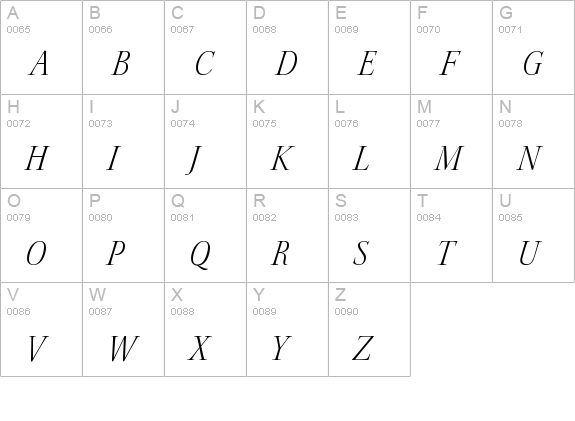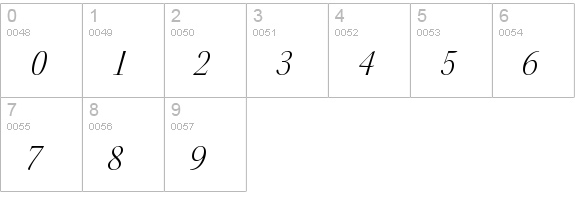
Kepler Std Light Semicondensed Italic Display Font Details
Kepler Std Light Semicondensed Italic Display is a refined, elegant, italic variant in the Kepler typeface family \xE2\x80\x94 well suited to elegant body text, refined sub-headings, and luxury branding.
Kepler Std Light Semicondensed Italic Display font is a stunning and versatile typeface that exudes elegance and sophistication. Its sleek and refined design makes it perfect for a wide range of projects, from branding and packaging to editorial and advertising. This font features a unique blend of modernity and classic charm, with subtly slanted italics that add a touch of dynamism and energy to the overall composition. The semi-condensed letterforms create a compact and space-saving layout, making it an excellent choice for headlines, titles, and display purposes. Kepler Std Light Semicondensed Italic Display font is characterized by its clean and legible letterforms, ensuring optimal readability even at small sizes. Its delicate and well-balanced curves lend a sense of grace and sophistication to any design. The font's light weight adds a sense of subtlety and delicacy, making it a perfect choice for projects that require a touch of elegance. One of the most remarkable aspects of Kepler Std Light Semicondensed Italic Display font is that it is freely available to download at FontsMarket.com. This means that designers and creatives can access this magnificent typeface without any cost, allowing them to enhance their projects with a professional and stylish touch. Whether you're working on a branding project, designing a magazine layout, or creating eye-catching advertisements, Kepler Std Light Semicondensed Italic Display font is a versatile choice that will elevate your design to new heights. Its sleek and refined aesthetic, combined with its availability for free download, makes it a must-have font for any designer looking to make a statement.